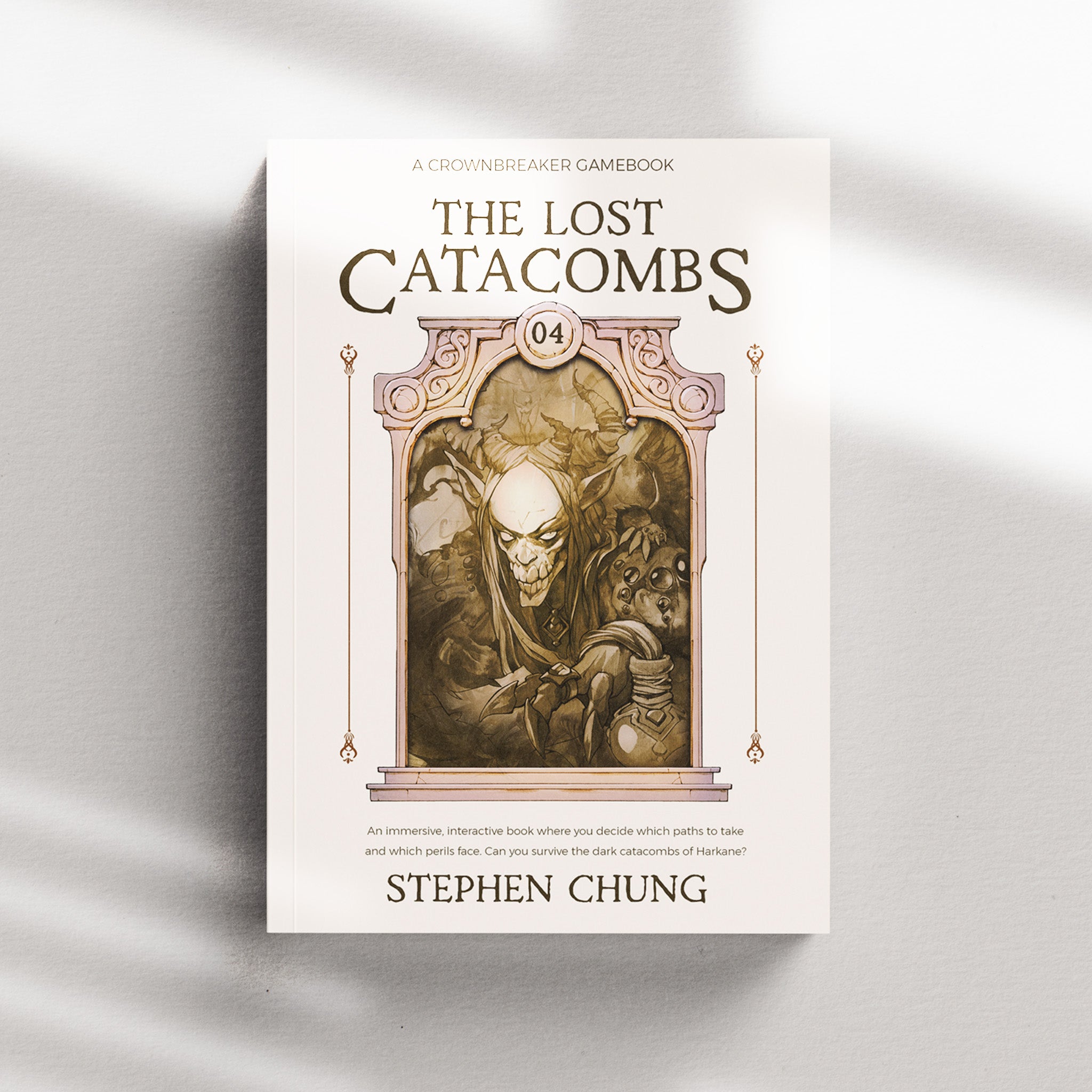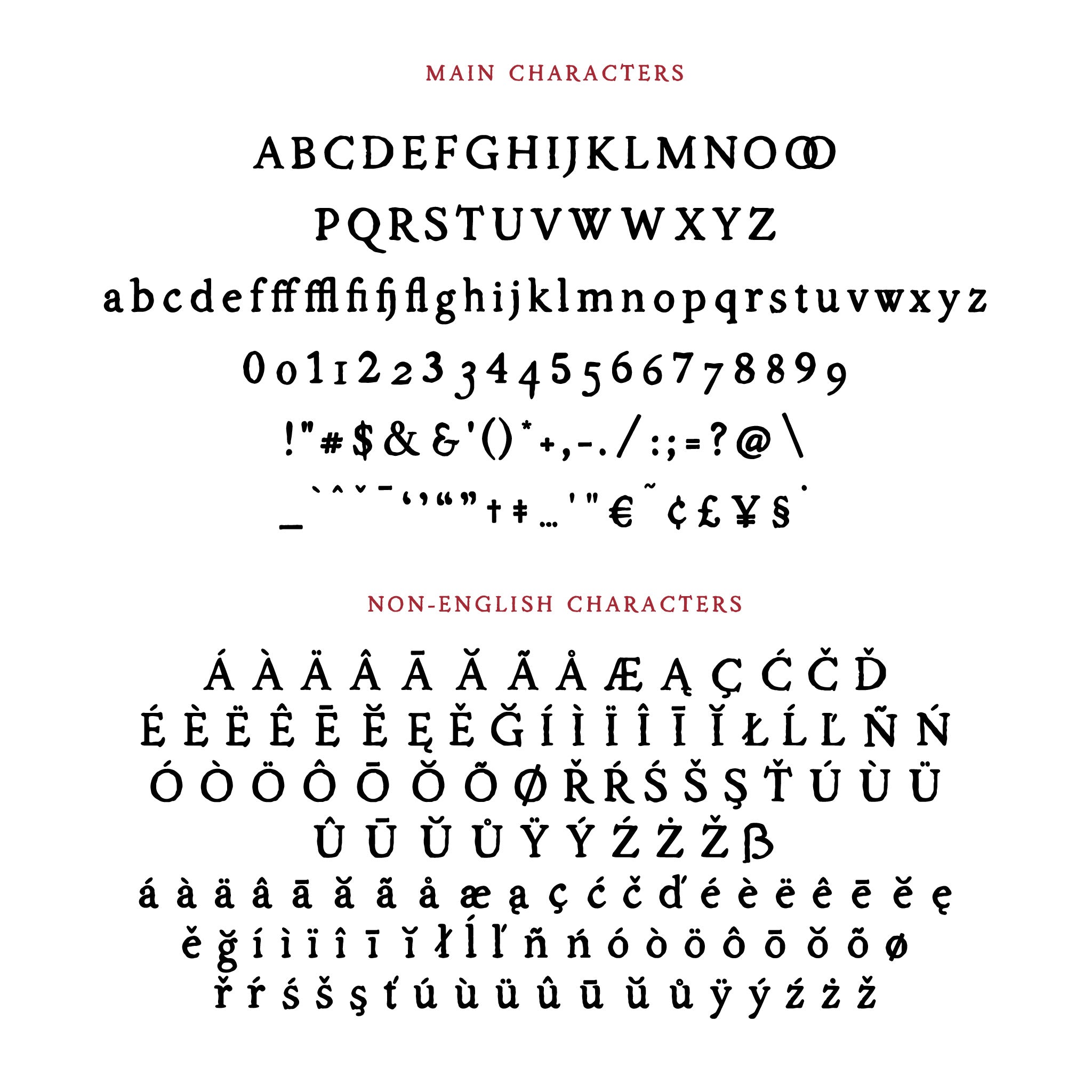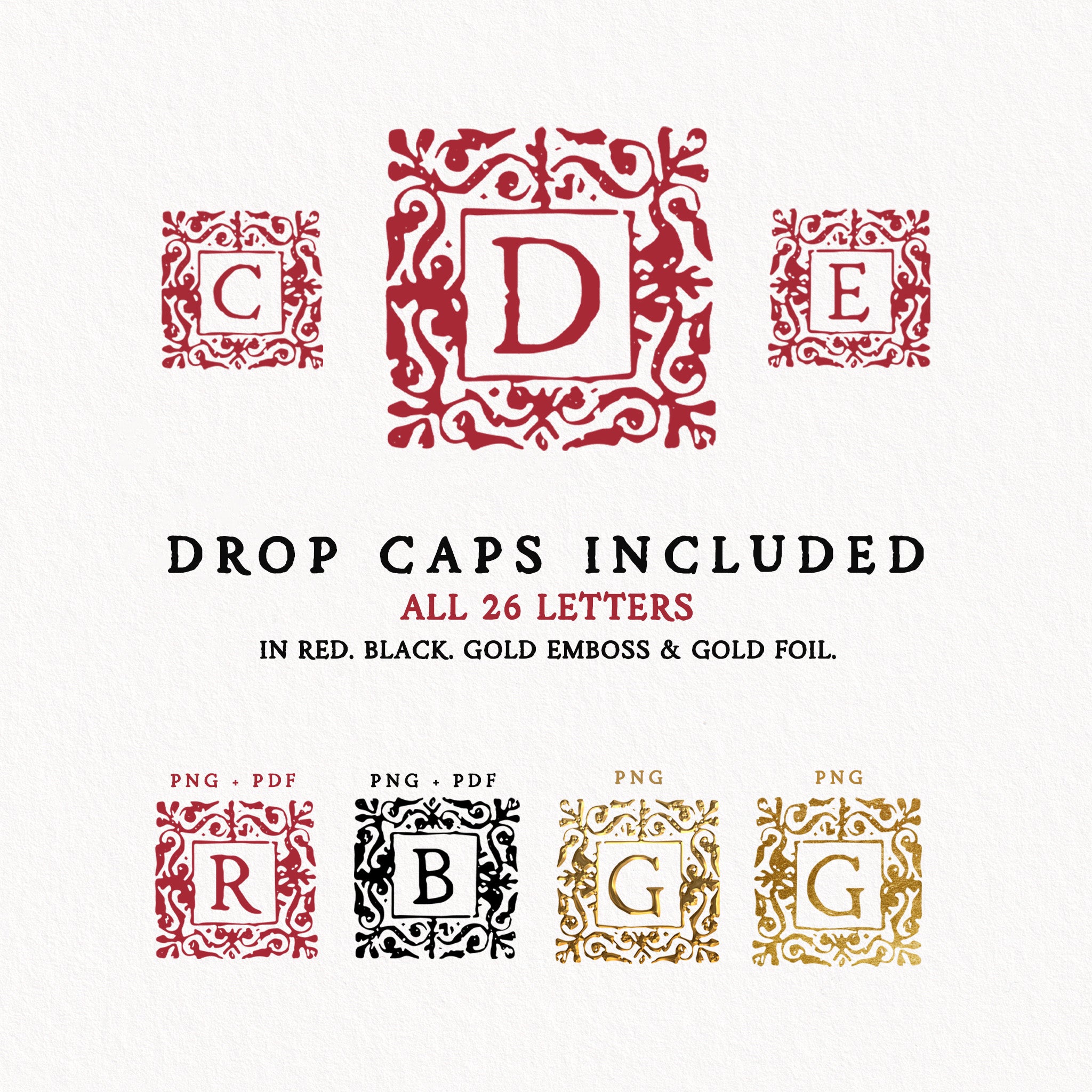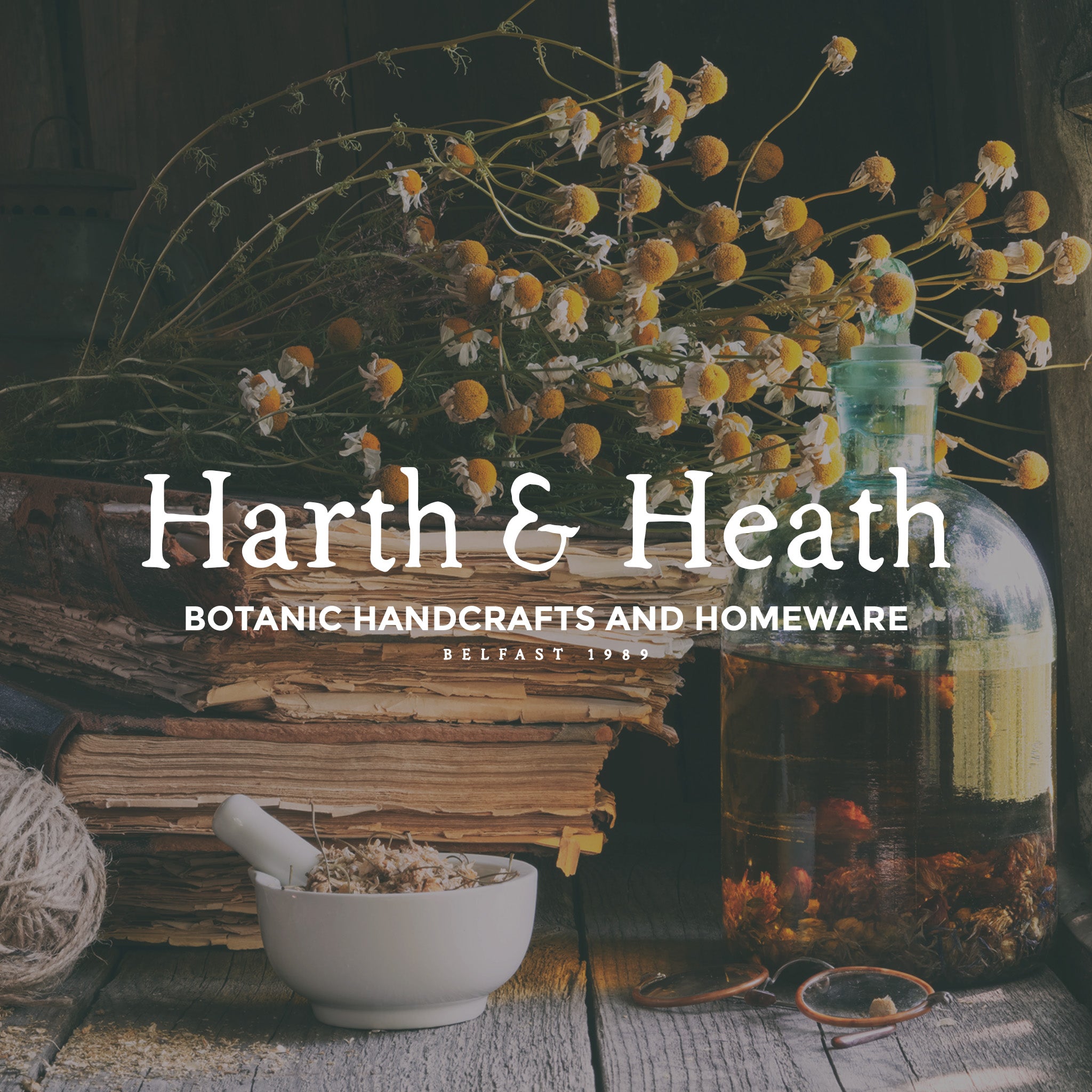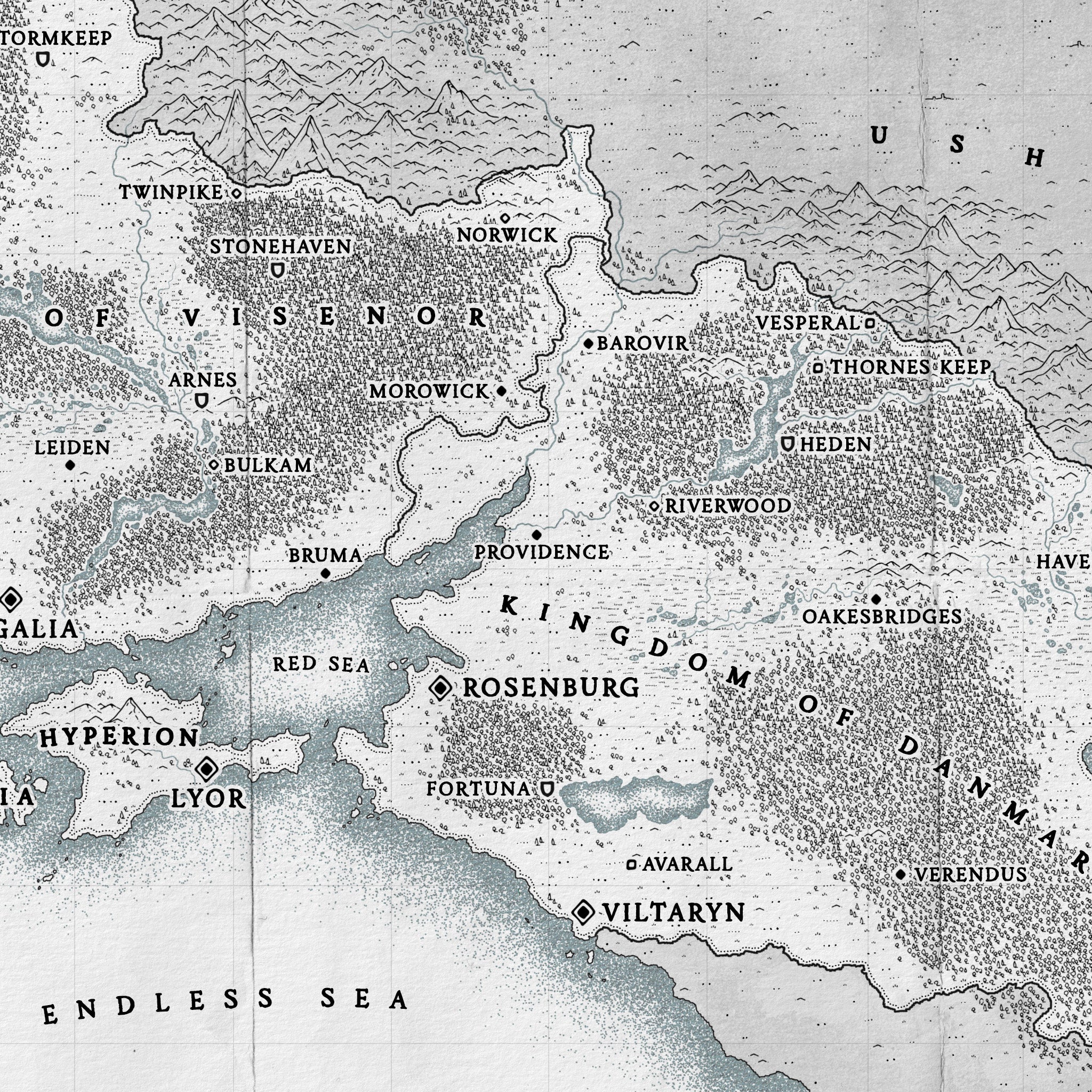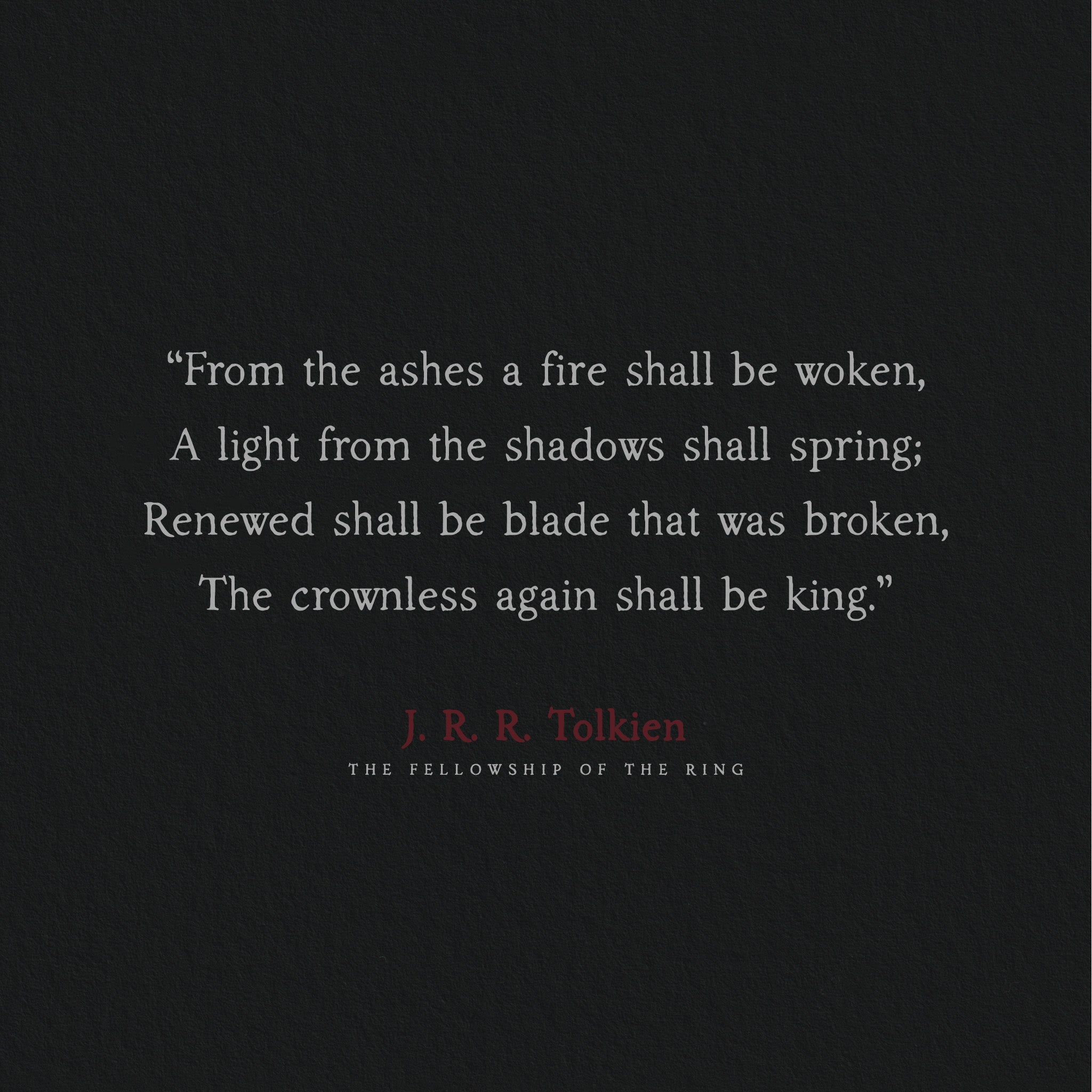
Folklore Hand Drawn Serif
Folklore is an enchanting, handmade typeface with a hint of medieval mystique. Versatile and robust, it can appear playful and whimsical, or dark and gloomy. Perfect for RPG campaigns or labels on fantasy maps, props, handouts and more.
Available in three styles: bold, regular and light with decorative drop caps graphics as an additional bonus.
Folklore contains numerous non-English characters, providing multilingual support for over 70 languages.